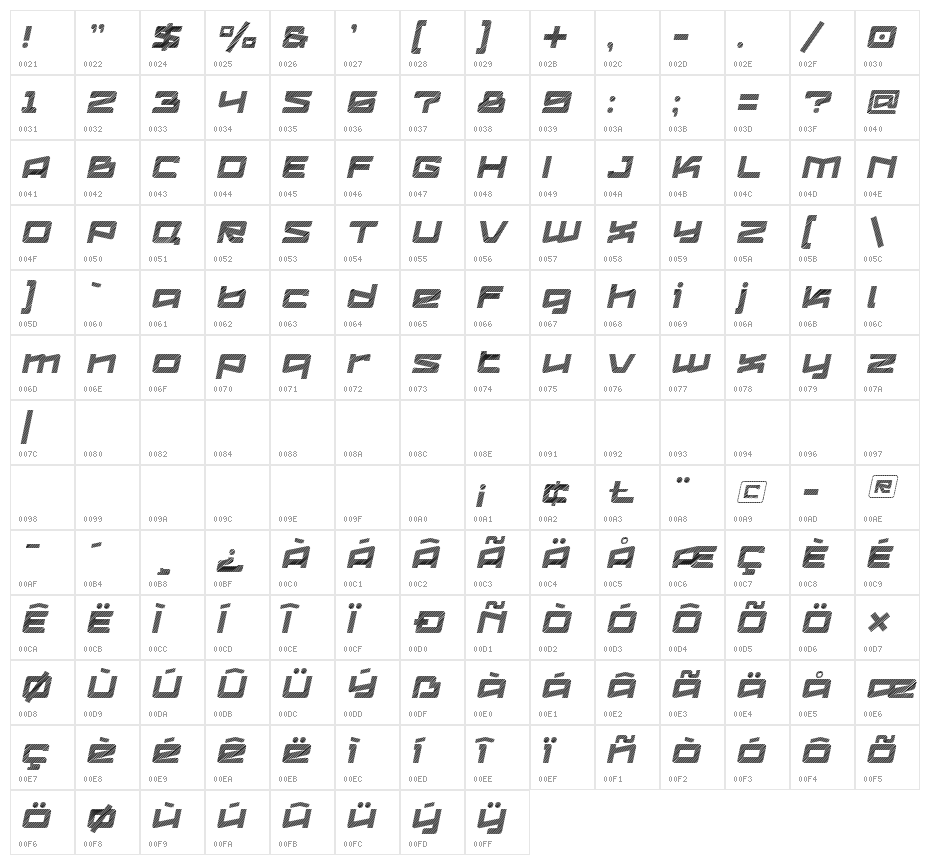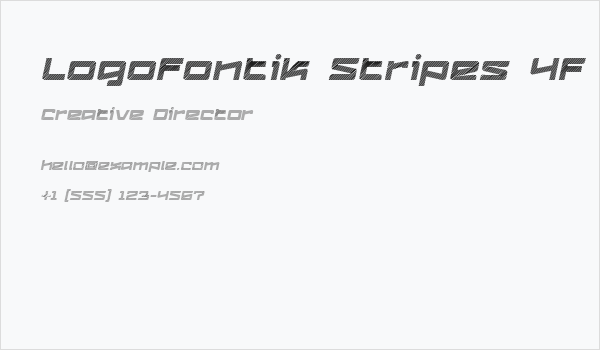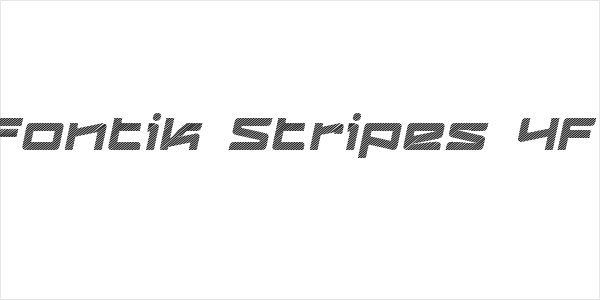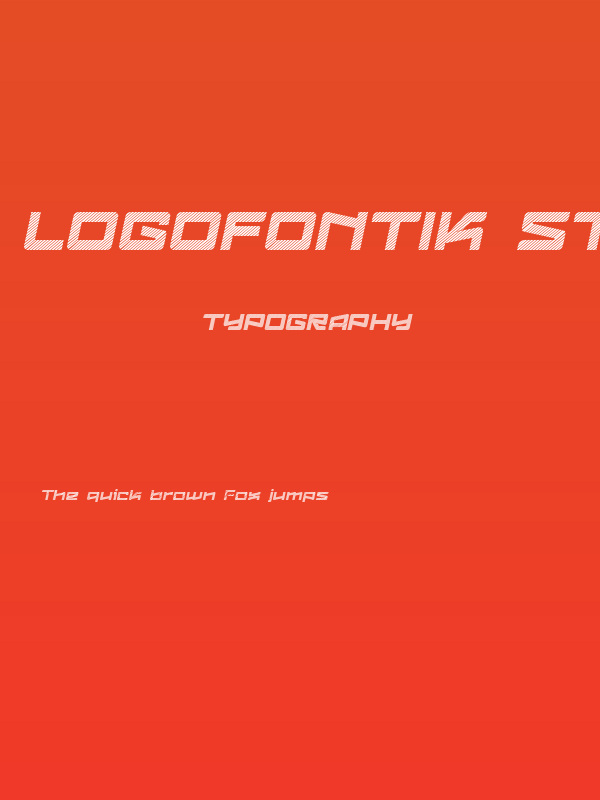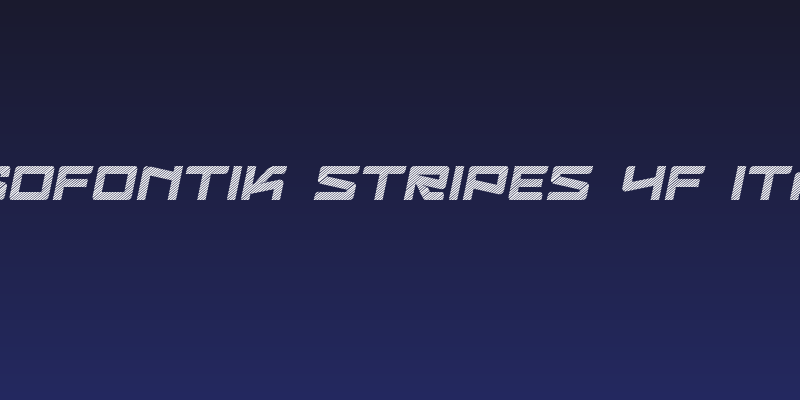
Logofontik Stripes 4F Italic Font
Logofontik Stripes 4F Italic Description
This font features a dynamic and modern design with a distinct striped pattern running diagonally across each character. The letters are slightly italicized, giving them a forward-leaning appearance that suggests movement and speed. The uppercase and lowercase letters maintain a consistent style, with angular edges and a geometric structure. The numbers and special characters follow the same design principles, ensuring uniformity across all glyphs. This font's unique texture and slant make it stand out, ideal for projects that require a bold and contemporary look.
| Proposed Projects | Ideal for branding, sports team logos, dynamic posters, and modern web design. |